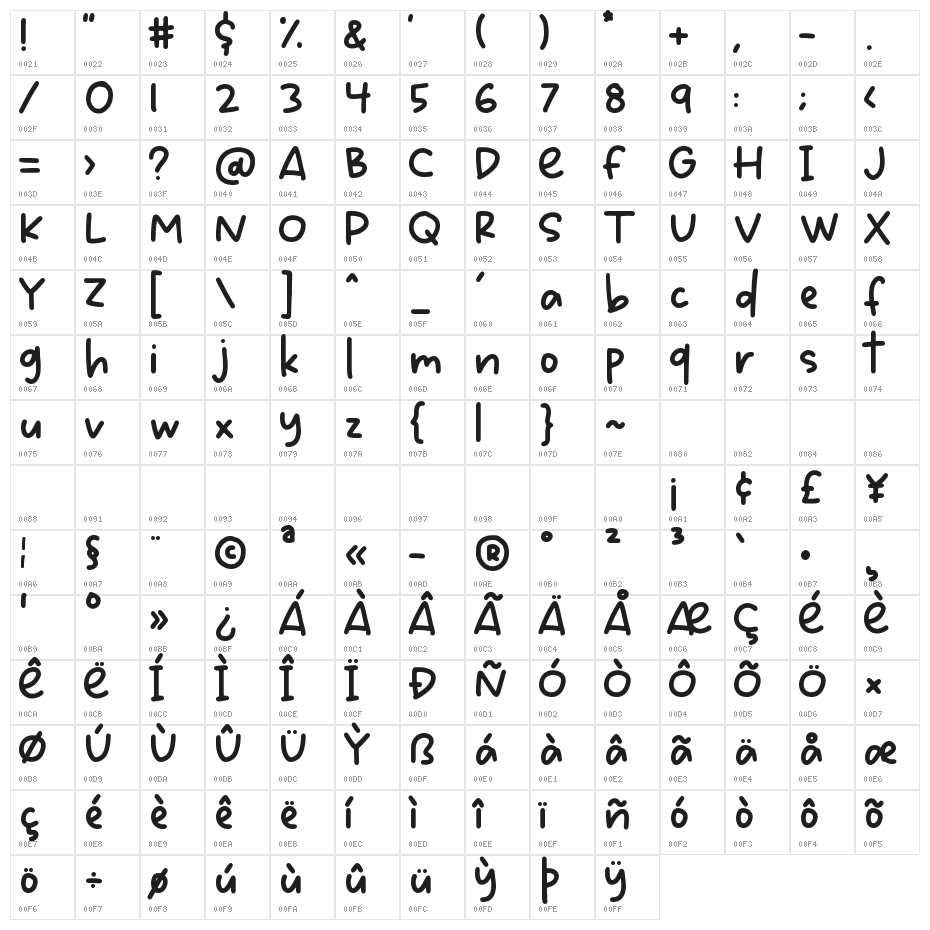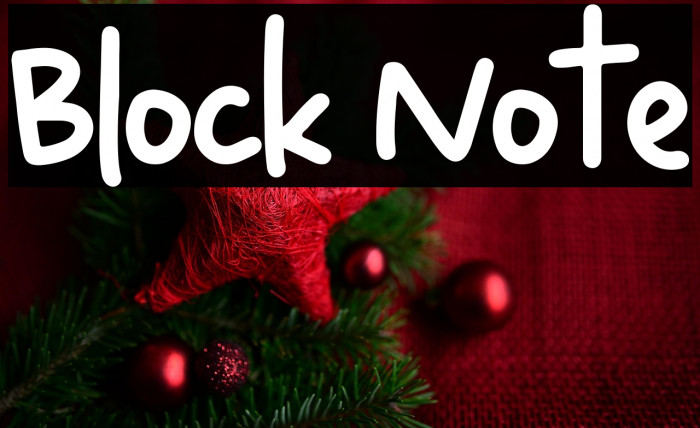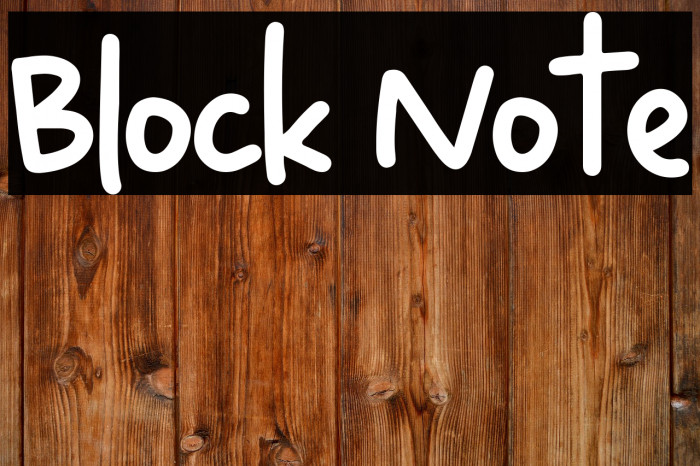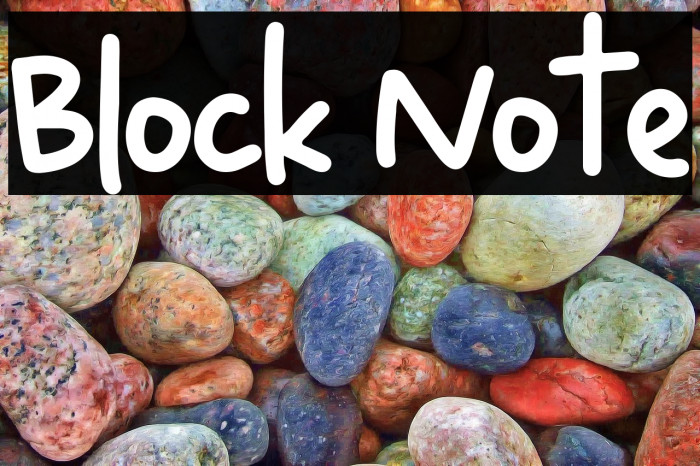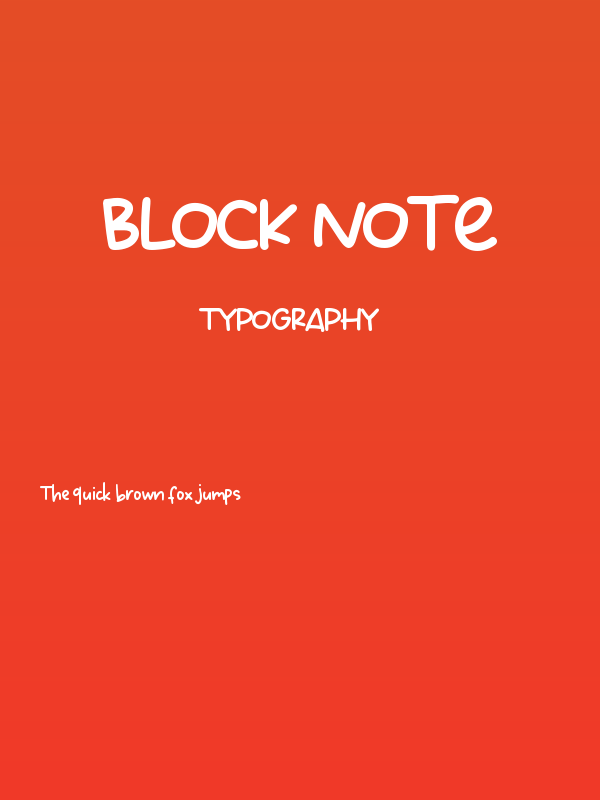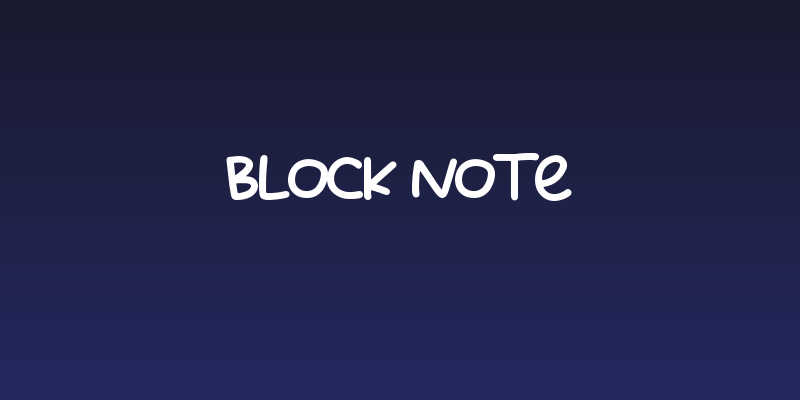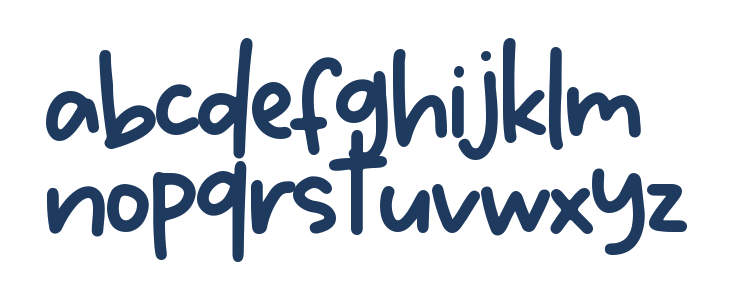
Block Note Font
Block Note Description
This playful and bold font features a handwritten style with rounded edges and a casual appearance. The letters are slightly irregular, adding a whimsical and friendly touch. The uppercase and lowercase characters maintain a consistent style, with a slight slant that gives a dynamic feel. The numbers and special characters are equally bold and maintain the same playful aesthetic, making them stand out. This font is perfect for projects that require a fun and approachable look, such as children's books, casual branding, or creative posters.
| Overall Style | Playful |
| Proposed Projects | Children's books, casual branding, creative posters, social media graphics. |